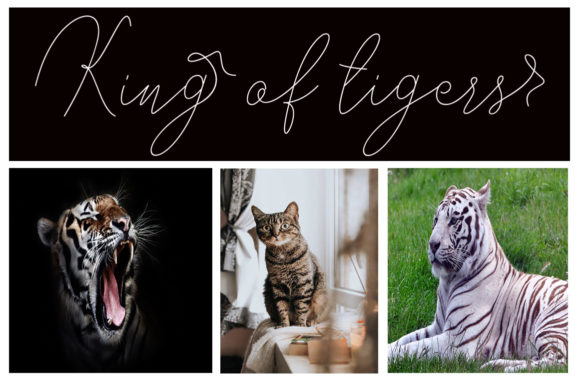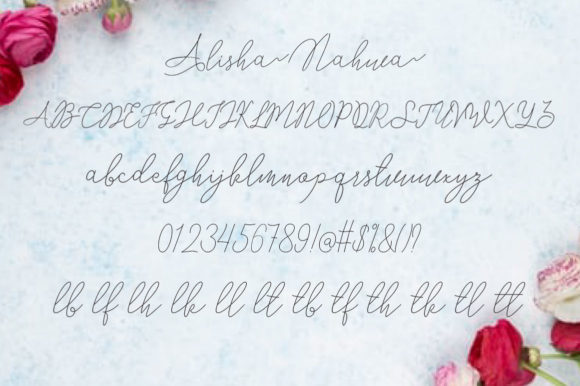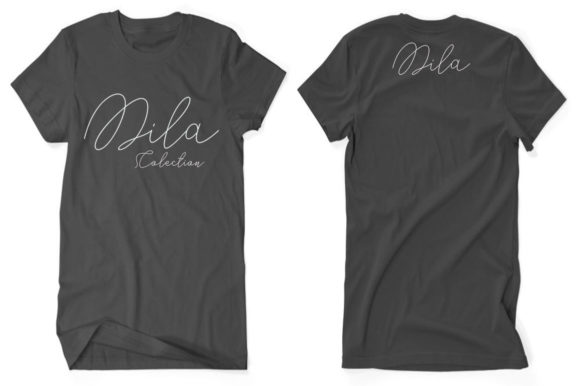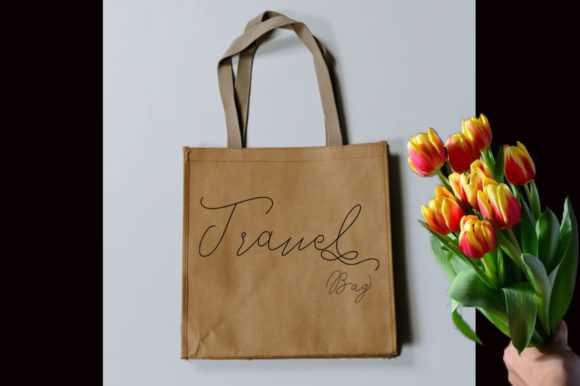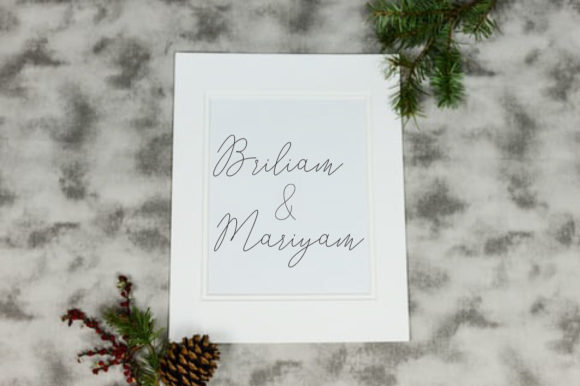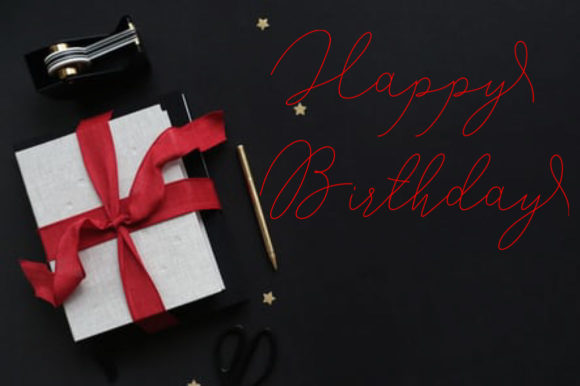
The Perfect Font for Creative Projects: Alisha Nahwa
Have you ever been in the middle of a design project, and suddenly, you just can’t seem to find the right font? I know I have. It was a few months ago when I was working on a DIY craft project for a client, and I needed a font that was both cute and elegant. After hours of browsing through font libraries, I stumbled upon Alisha Nahwa, and it was love at first sight! 💕
Alisha Nahwa is a beautiful, handwritten font that exudes a friendly and approachable feel. Its gorgeous swashes and ligatures make it incredibly versatile, perfect for a wide range of creative projects. In this article, I’ll share my experience with Alisha Nahwa, and provide you with a comprehensive guide on how to use it in your designs.
An Honest Review of Alisha Nahwa
- ✨ Cute and casual feel: Alisha Nahwa has a unique, handwritten look that’s perfect for DIY projects, social media graphics, and more.
- ✅ Gorgeous swashes and ligatures: The font features beautiful swashes and ligatures that add a touch of elegance to any design.
- 💻 PUA encoded: Alisha Nahwa is PUA encoded, making it easy to access all the cute glyphs and swashes.
- 🎨 Special features: The font includes alternate glyphs, ligatures, and other special features that give you plenty of creative options.
While Alisha Nahwa is an amazing font, there are a few things to keep in mind: 🤔
- ⚠️ Some swashes may not work well in all contexts: While the swashes and ligatures are gorgeous, some may not work well in certain design contexts, such as small text sizes or tight layouts.
- ⚠️ May require some experimentation: With so many special features and glyphs, it may take some time to get familiar with the font and figure out how to use them effectively.
The Designer Inspiration Behind Alisha Nahwa
Alisha Nahwa was designed with the intention of creating a font that’s both cute and elegant. The designer, [designer name], wanted to create a font that would be perfect for creative projects, such as DIY crafts, social media graphics, and more. With its gorgeous swashes and ligatures, Alisha Nahwa is sure to add a touch of personality to any design.
Q: What is Alisha Nahwa?
Alisha Nahwa is a beautiful, handwritten font with a cute and casual feel. It features gorgeous swashes and ligatures, making it perfect for a wide range of creative projects.
Q: Is Alisha Nahwa easy to use?
Yes, Alisha Nahwa is easy to use, even for those who are new to design. The font is PUA encoded, making it easy to access all the cute glyphs and swashes.